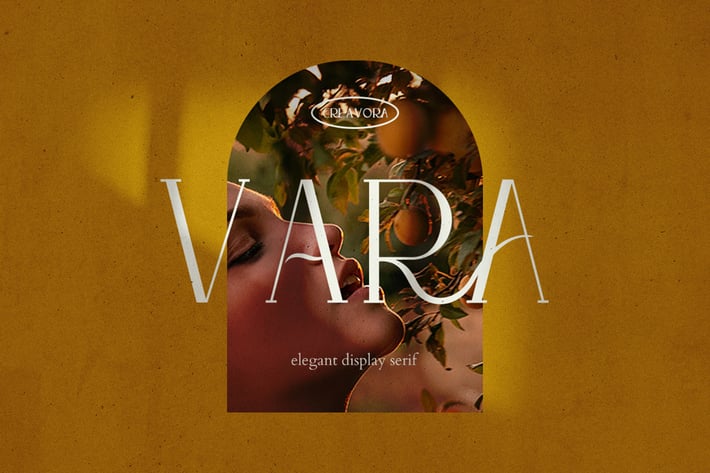
Vara - Display Serif Font
Introducing Vara - Display Serif Font
If you need a touch of flair to your design, here you go. Meet the Vara Display Serif Font. This is an elegant font that gives more aesthetic look for your next project.